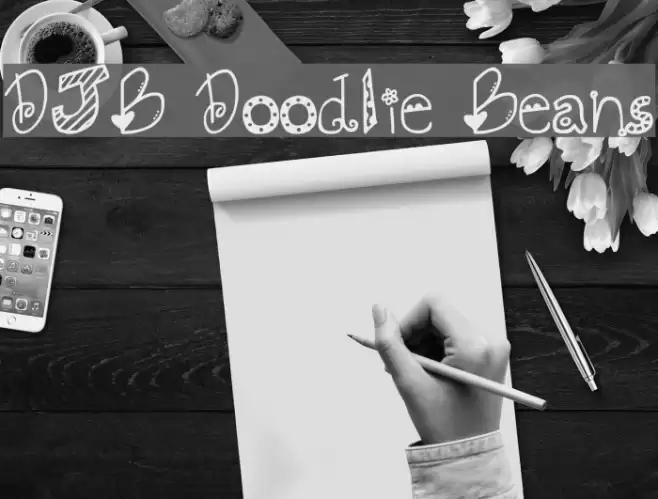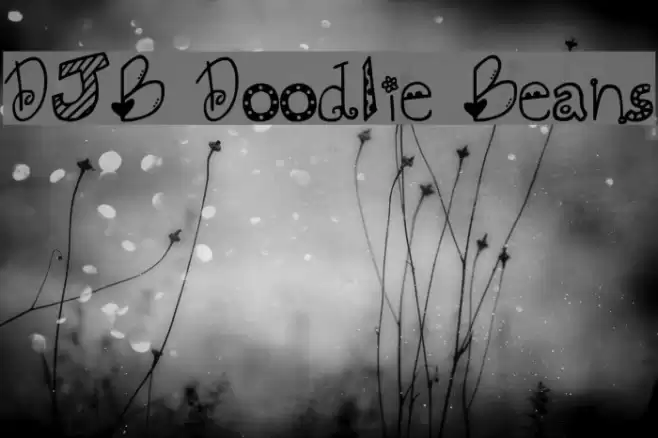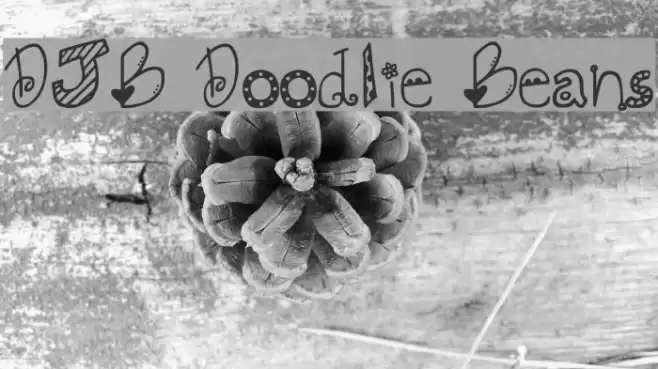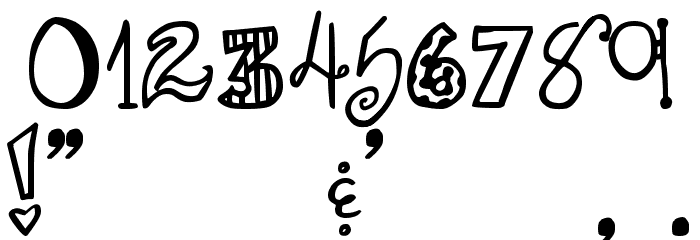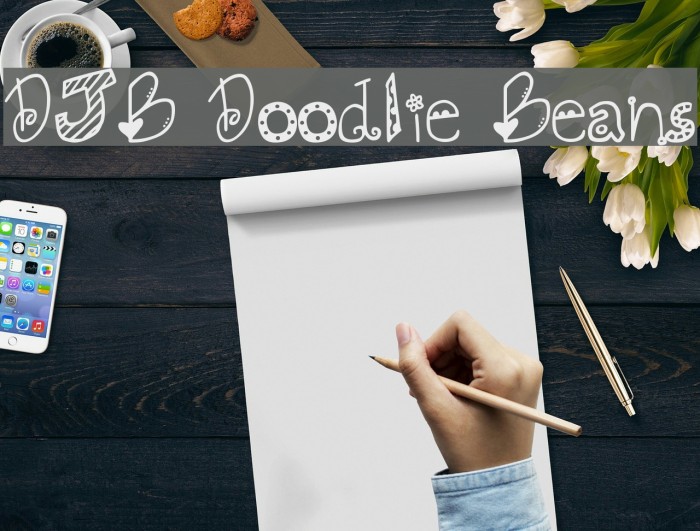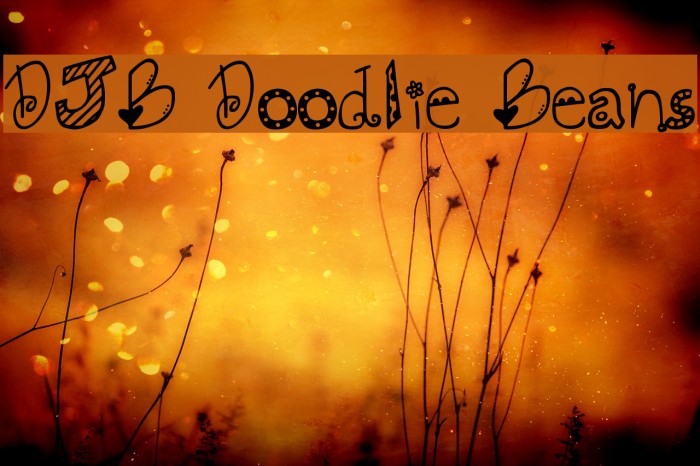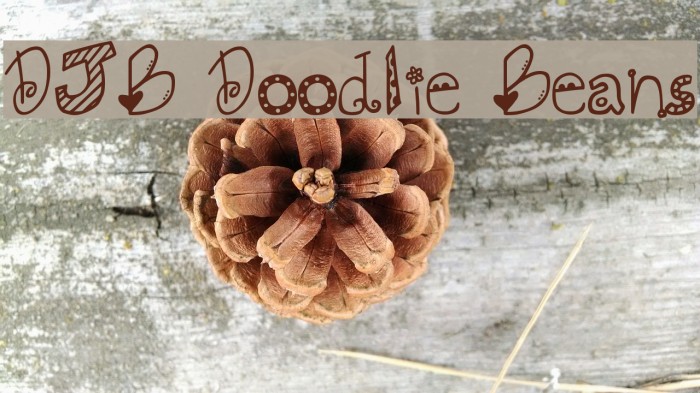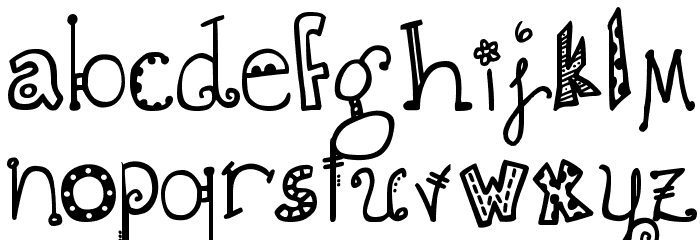
DJB Doodlie Beans Font
DJB Doodlie Beans Description
This playful and whimsical font features a variety of quirky and unique letterforms, each adorned with decorative elements such as dots, stripes, and swirls. The uppercase letters are bold and eye-catching, with some incorporating heart shapes and other playful motifs. The lowercase letters maintain the whimsical theme with irregular shapes and sizes, adding to the font's charm. Numbers and special characters are equally creative, with each character offering a distinct and imaginative design. This font is perfect for projects that require a fun and lively touch.
A whimsical and decorative font with playful, unique letterforms from Decorative fonts.
- Proposed Projects: Ideal for children's books, playful invitations, greeting cards, and creative posters.
- Overall Style: Playful and Whimsical
- Use Case: Headlines, Logos, Creative Projects